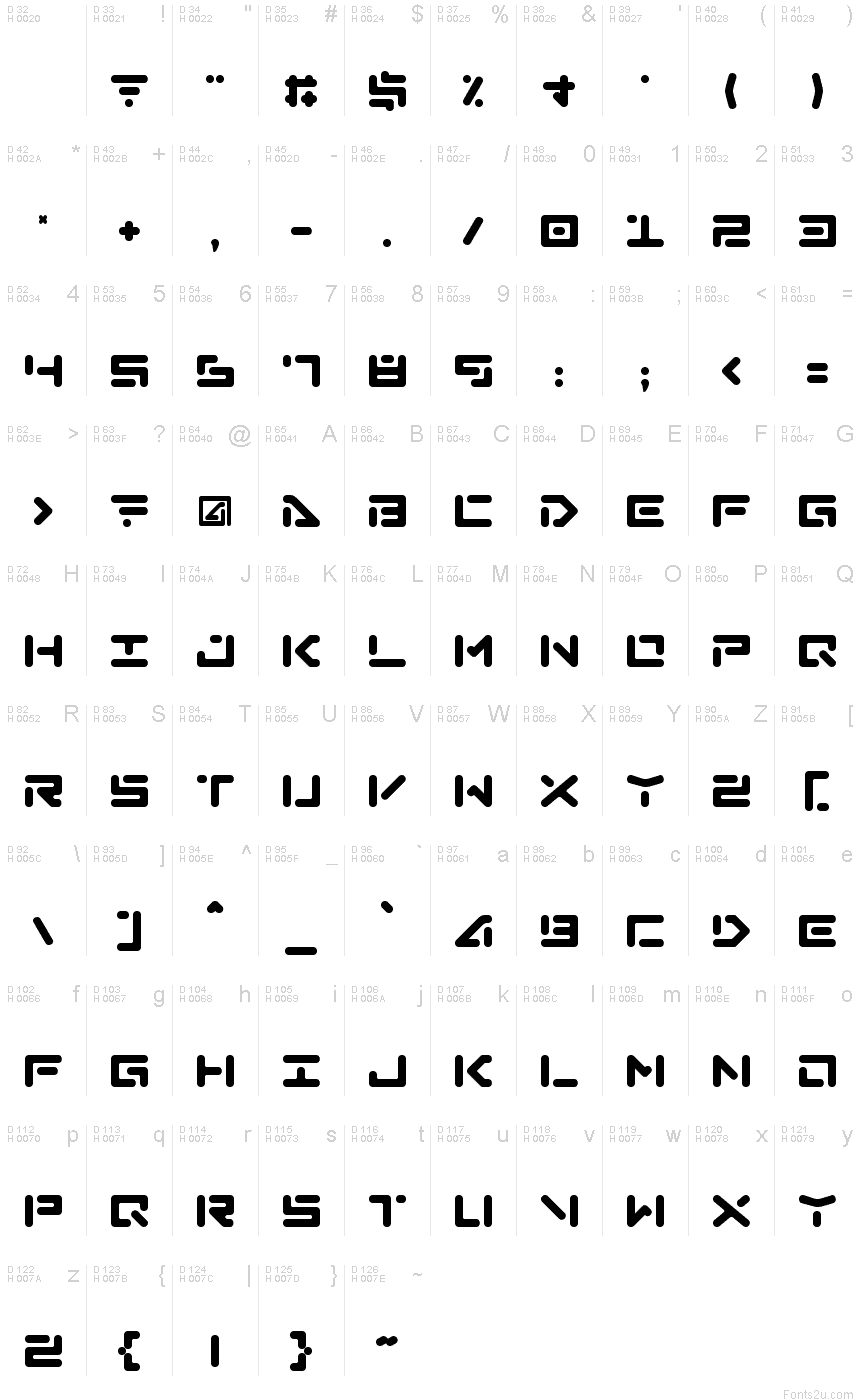
Abduction
Abduction font by R.Gast - DarkSide Productions is a free futuristic display typeface with a sleek, alien-coded vibe. Its chunky, rounded forms, tight rhythm, and tube-like strokes feel like they’ve been pulled straight from a spaceship console, giving text a cryptic, otherworldly glow. The letters link visually into smooth, continuous patterns, so headlines read less like text and more like a sci-fi symbol system.
Using Abduction, you can push sci-fi posters, game titles, tech event flyers, EDM or synthwave album art, and experimental branding into full-on extraterrestrial territory. This free font shines in large sizes where its bold curves and negative-space cuts can really breathe. Pair it with a clean, neutral sans-serif for body copy to keep layouts readable while Abduction handles the high-impact, cosmic headlines.
A futuristic type face inspired by the subject of alien abduction.